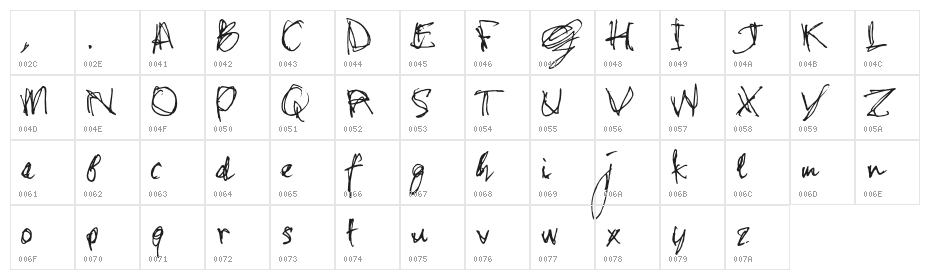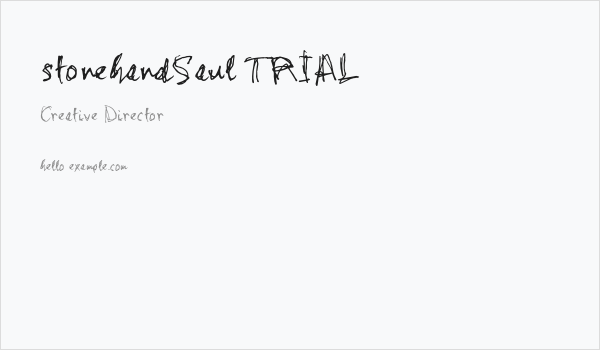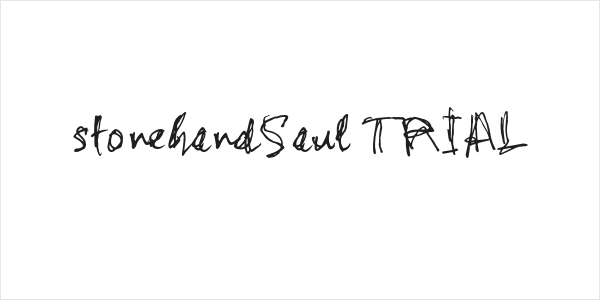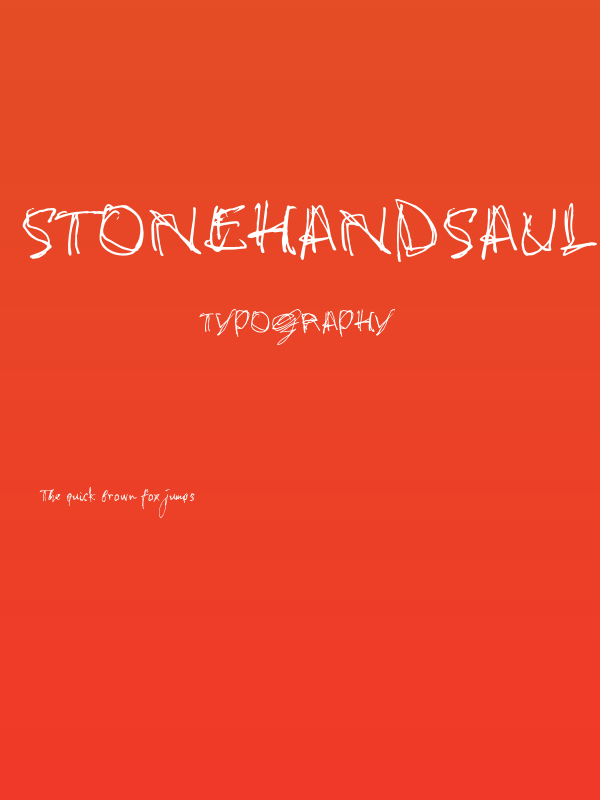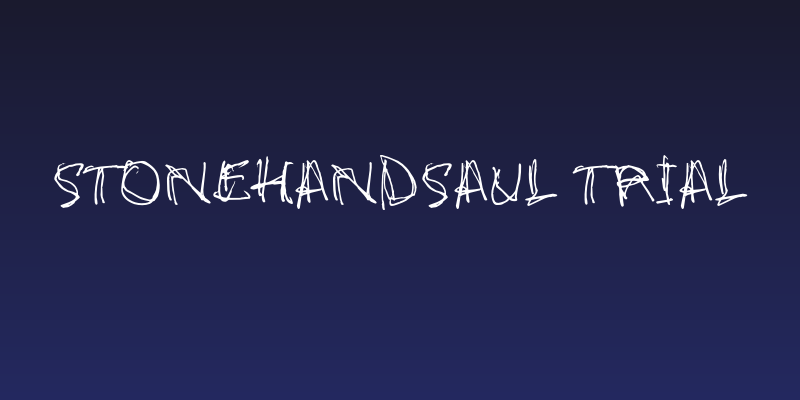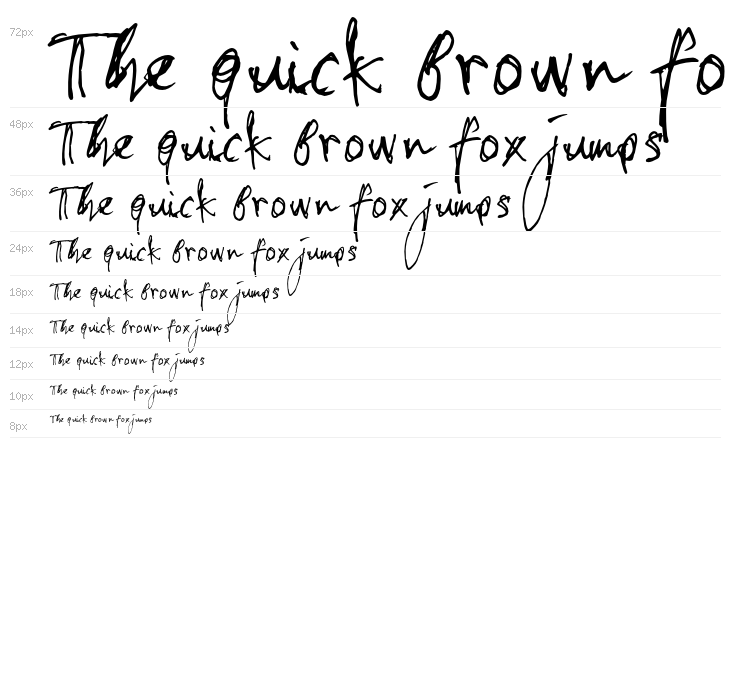
stonehandSaul_TRIAL Font
stonehandSaul_TRIAL Description
This font features a highly expressive and dynamic handwritten style, characterized by its bold and erratic strokes. The letters are irregular and vary in size, giving it an energetic and spontaneous appearance. The uppercase and lowercase letters maintain a consistent style, with exaggerated loops and curves that add to its unique charm. The numbers and special characters follow the same aesthetic, ensuring a cohesive look across all glyphs. This font is ideal for projects that require a personal touch or an artistic flair.
| Proposed Projects | Ideal for artistic projects, personal branding, creative posters, and expressive invitations. |